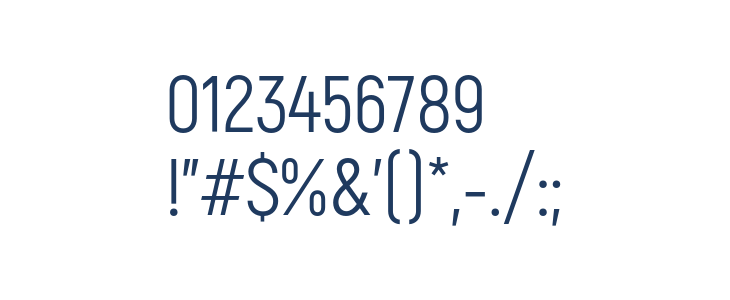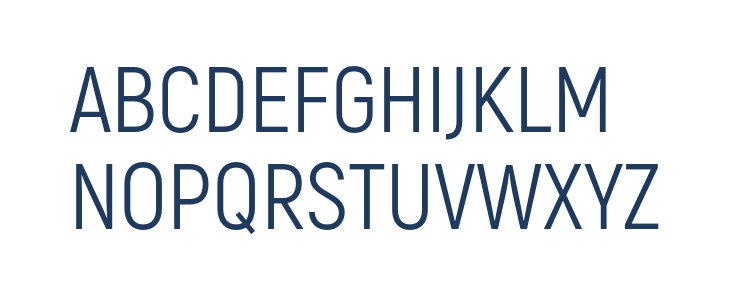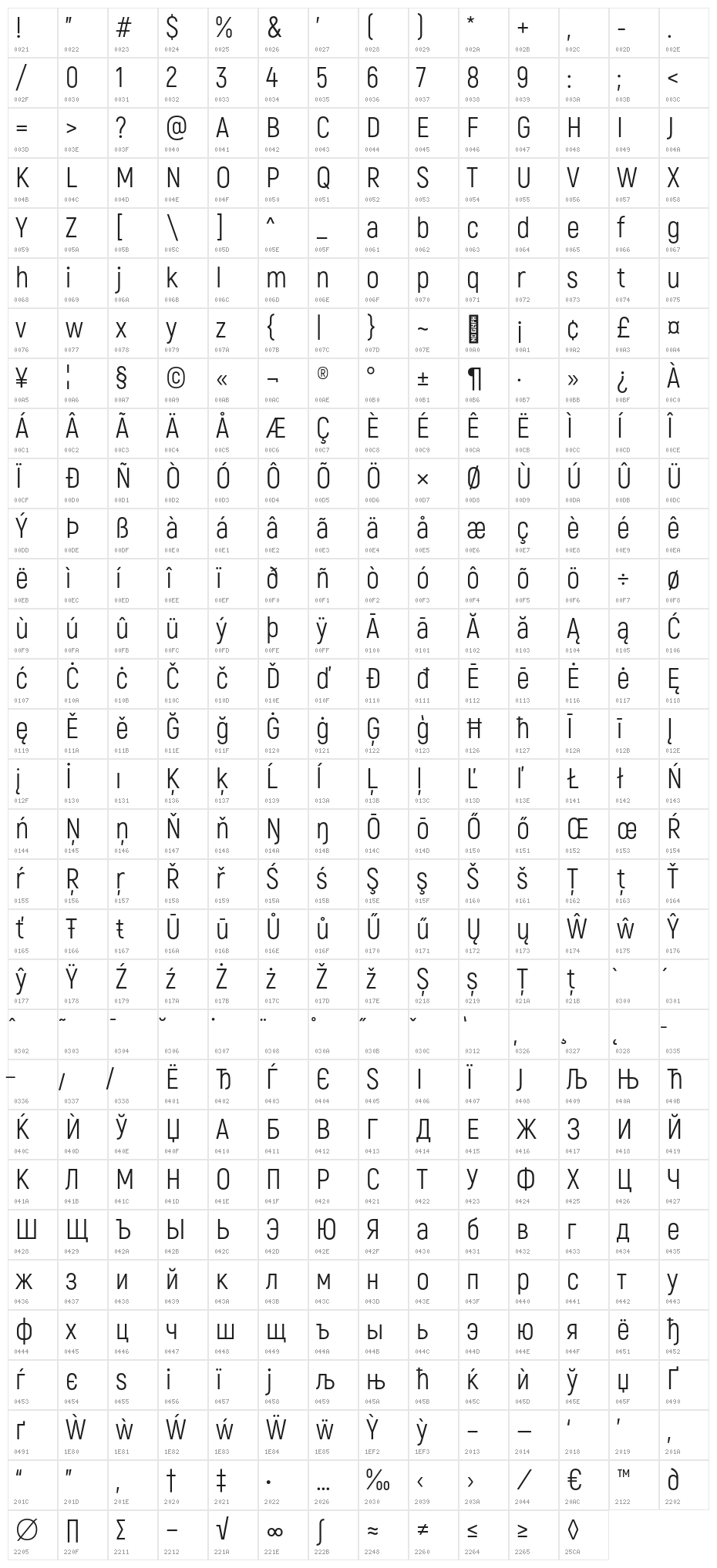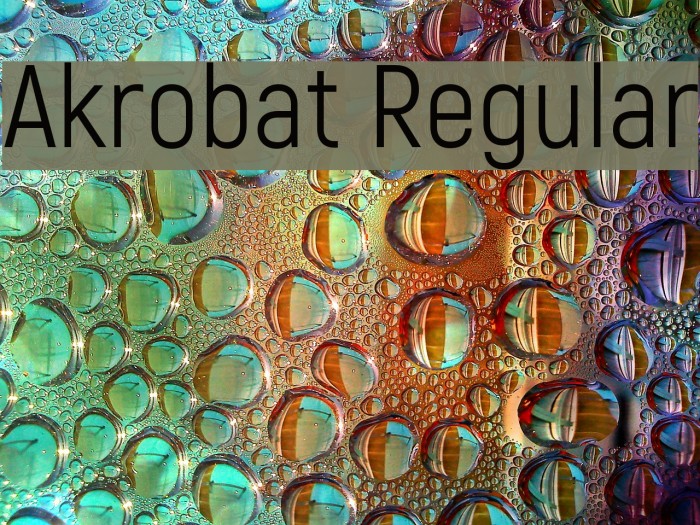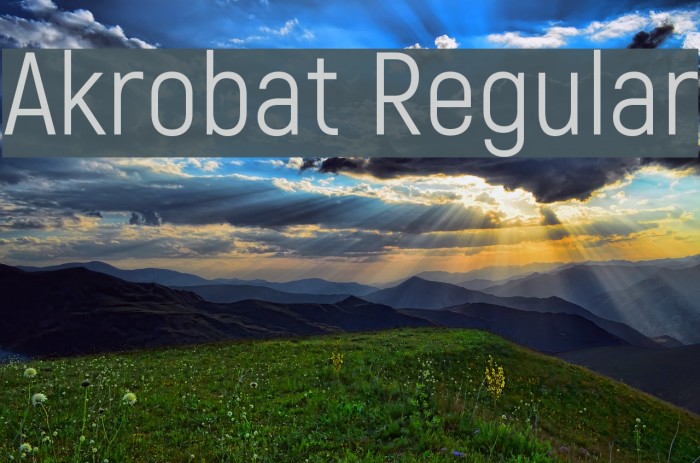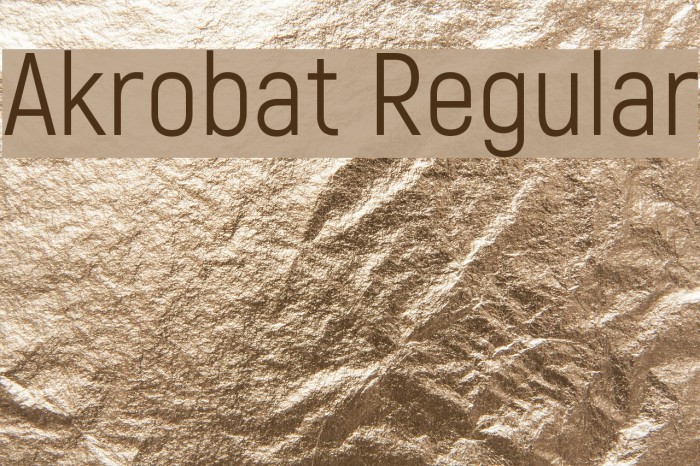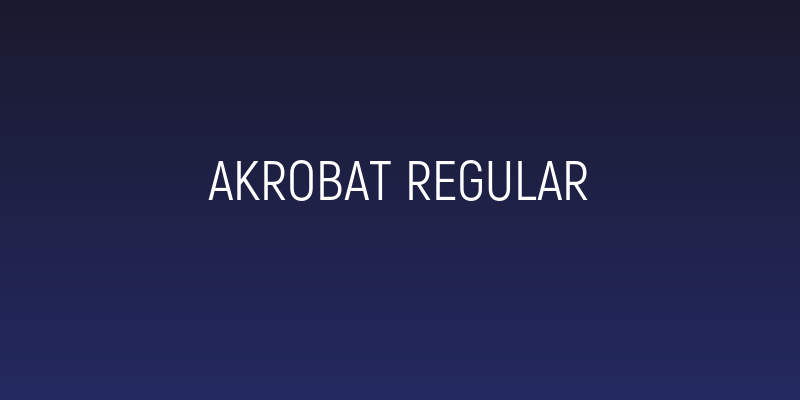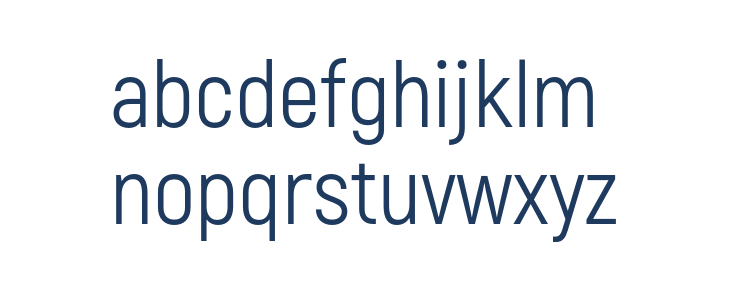
Akrobat Regular Font
Akrobat Regular Description
This typeface features a clean and modern sans-serif style with a geometric structure. The characters are tall and narrow, giving it a condensed appearance. The strokes are consistent in width, providing a uniform look across all characters. The font maintains a high level of legibility, making it suitable for various applications. Its minimalistic design is enhanced by the absence of serifs, and the overall aesthetic is sleek and professional. The spacing between characters is normal, ensuring readability without appearing crowded.
Use CaseHeadlines, Body text, Logos
Proposed ProjectsIdeal for digital interfaces, branding, advertising, and editorial design where a modern and clean look is desired.